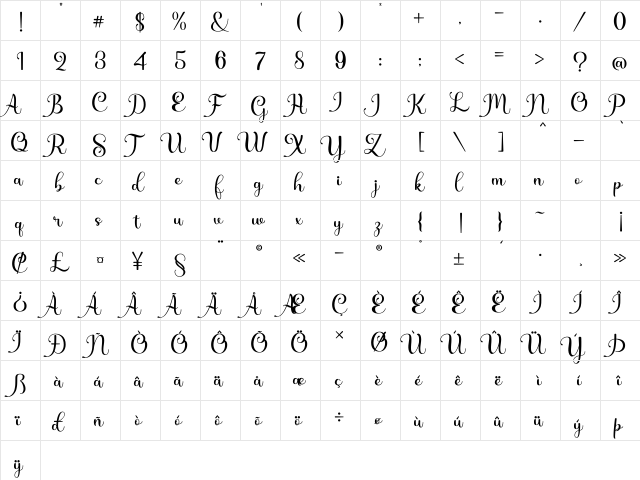
ShinyAisyah Regular
Design Context for ShinyAisyah Typeface
ShinyAisyah is a composed and adaptable typeface that performs quietly and consistently across a wide range of design contexts.
Pro Tip: Pair ShinyAisyah with a font of contrasting weight or personality to build a more expressive typographic hierarchy.